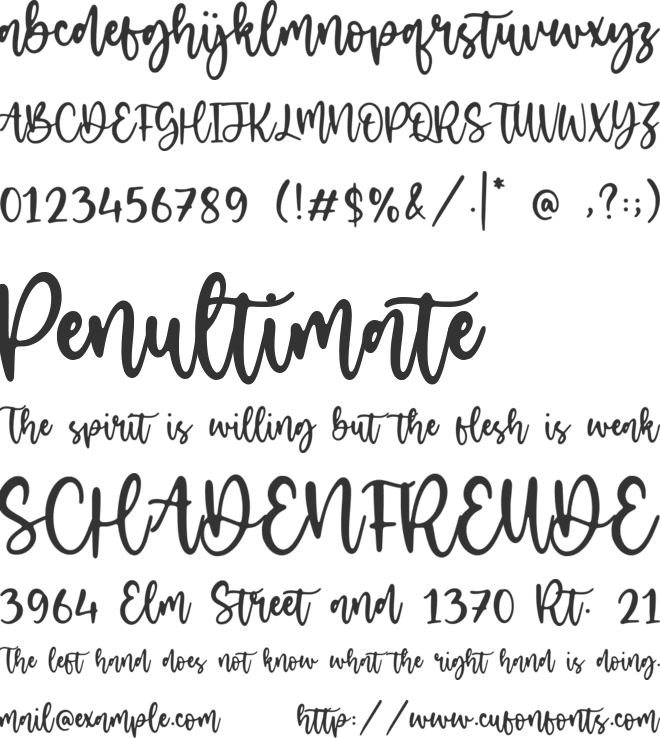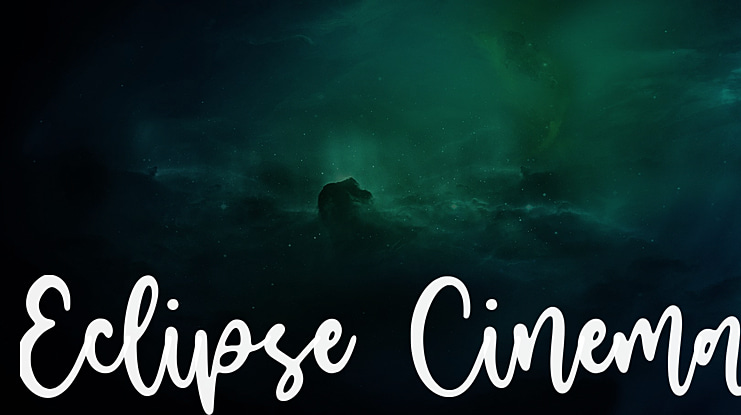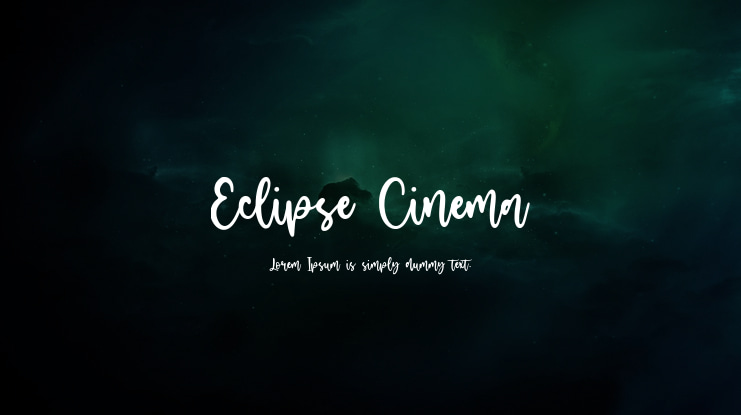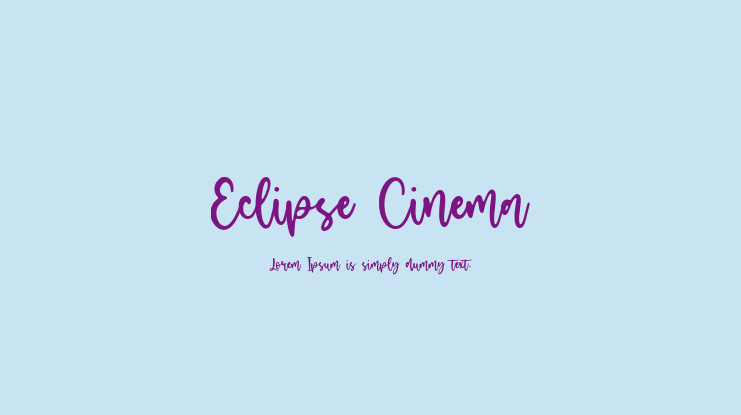
Eclipse Cinema Font
Introducing by Letterative Studio : Eclipse Cinema Font
Eclipse Cinema is a Beautiful Modern Handwritten Font
Eclipse Cinema is perfect for product packaging, branding project, megazine, social media, wedding, or just used to express words above the background.
Eclipse Cinema also multilingual support